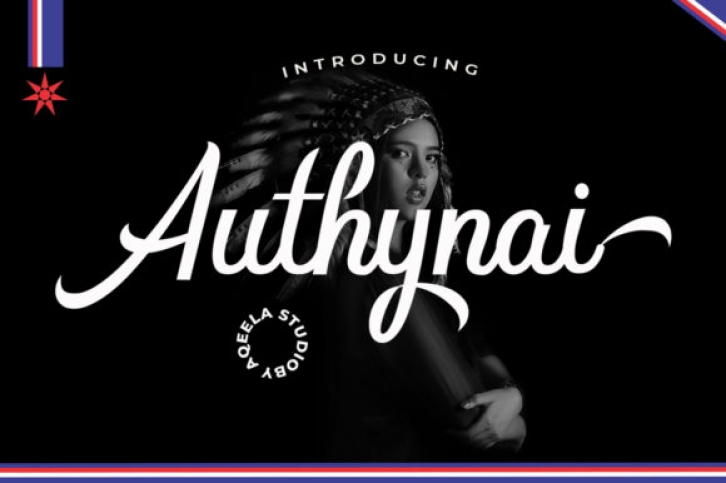
The Authynai is a new font script. It has a bold, clean style, and includes amazing swashes. It’s the perfect font to give your design a stylish and luxurious touch.
It’s perfect for logos, branding projects, household appliances design, product packaging, mugs, quotes, posters, shopping bags, and much more!